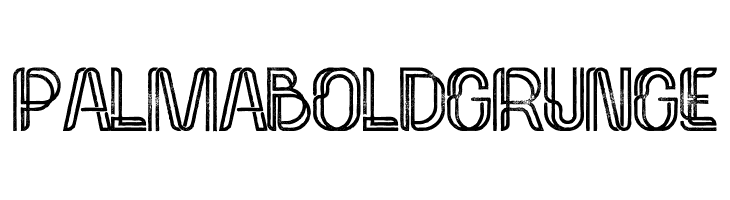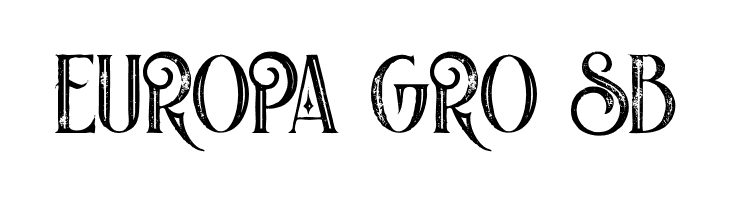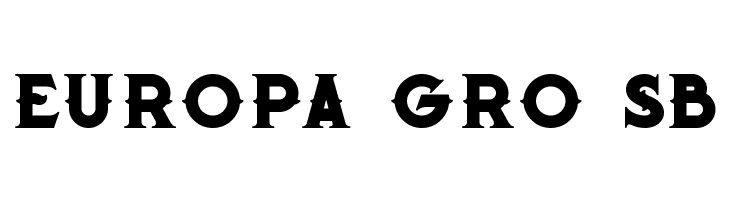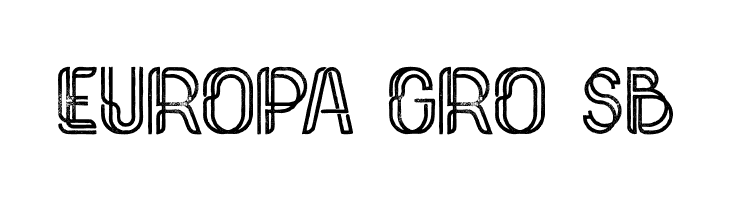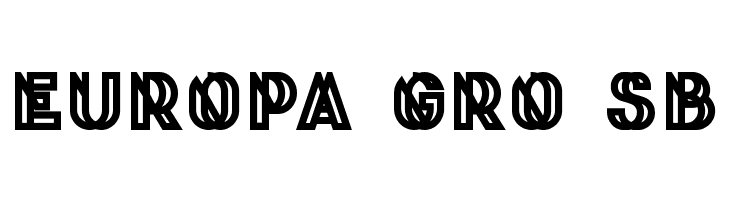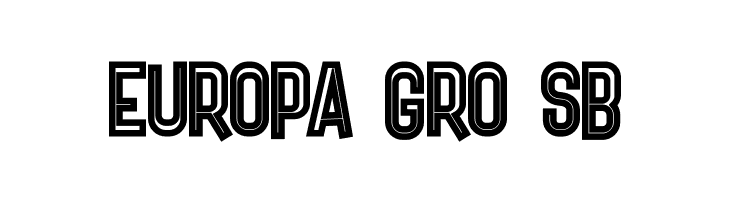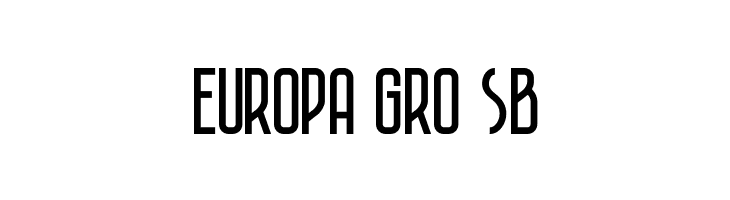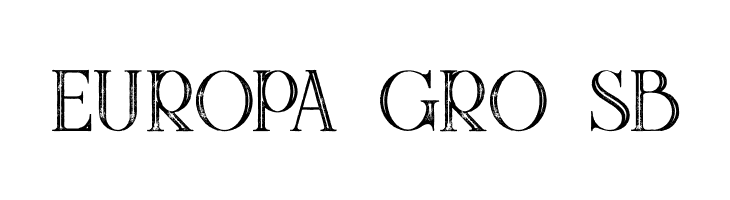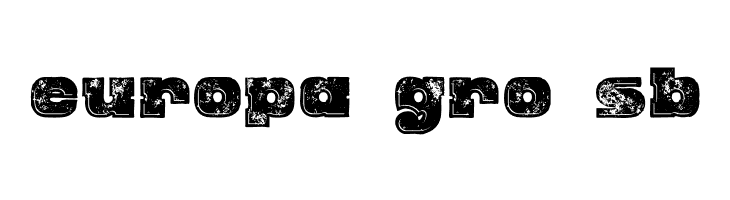
A bold, geometric font with sharp edges and a modern vintage feel.
A bold, industrial font with a distressed, grunge texture and angular design.
A decorative grunge font with inline detailing and a vintage, distressed look.
A bold, decorative font with angular serifs and a geometric style.
A bold, grunge-style font with a textured, distressed appearance.
A bold, shadowed font with a modern, decorative style, perfect for impactful headlines.
A bold, inline font with a geometric and decorative style.
A modern, elongated font with narrow, elegant characters.
A grunge-style font with elegant swashes and an inline design.
A bold, distressed inline font with a rugged, grunge aesthetic.